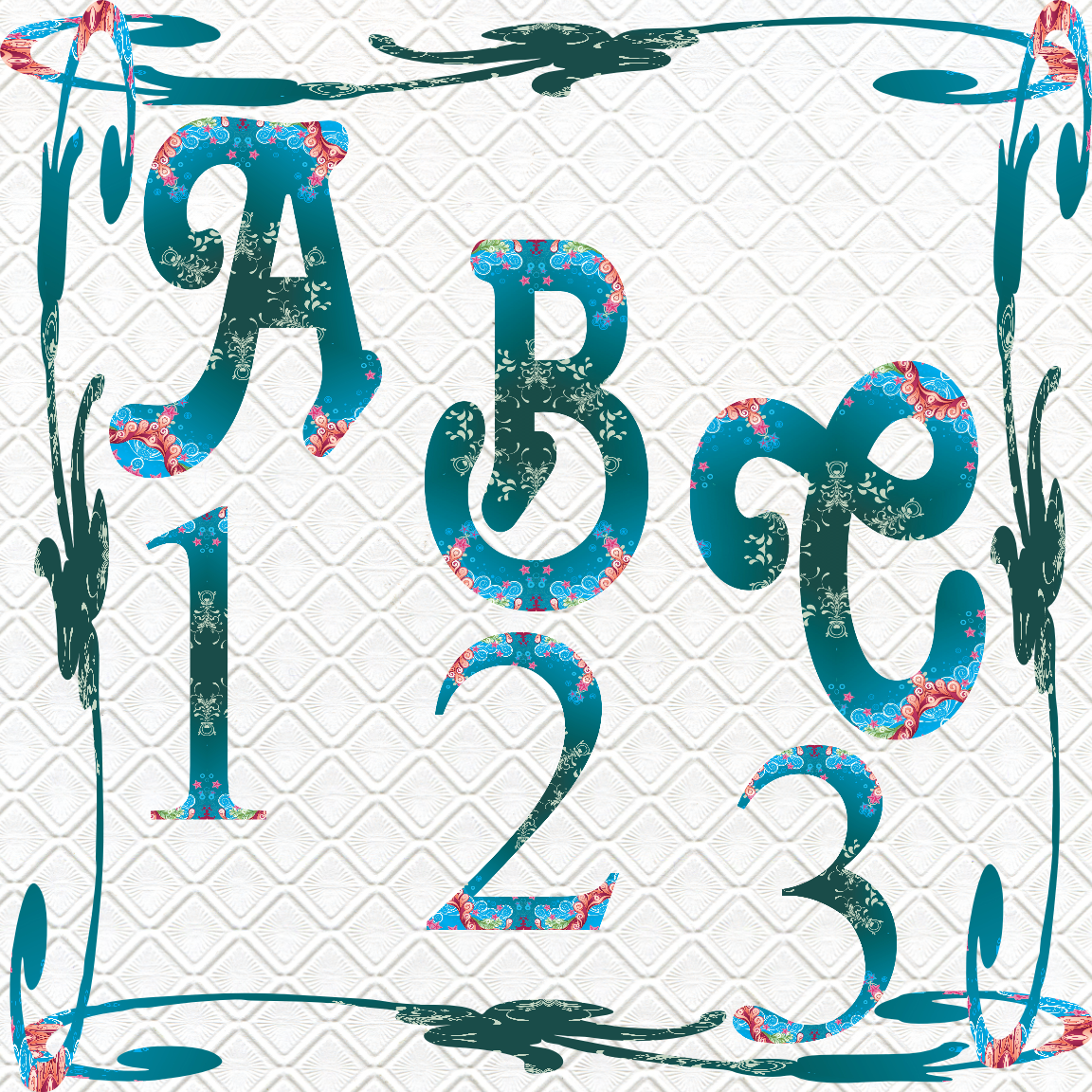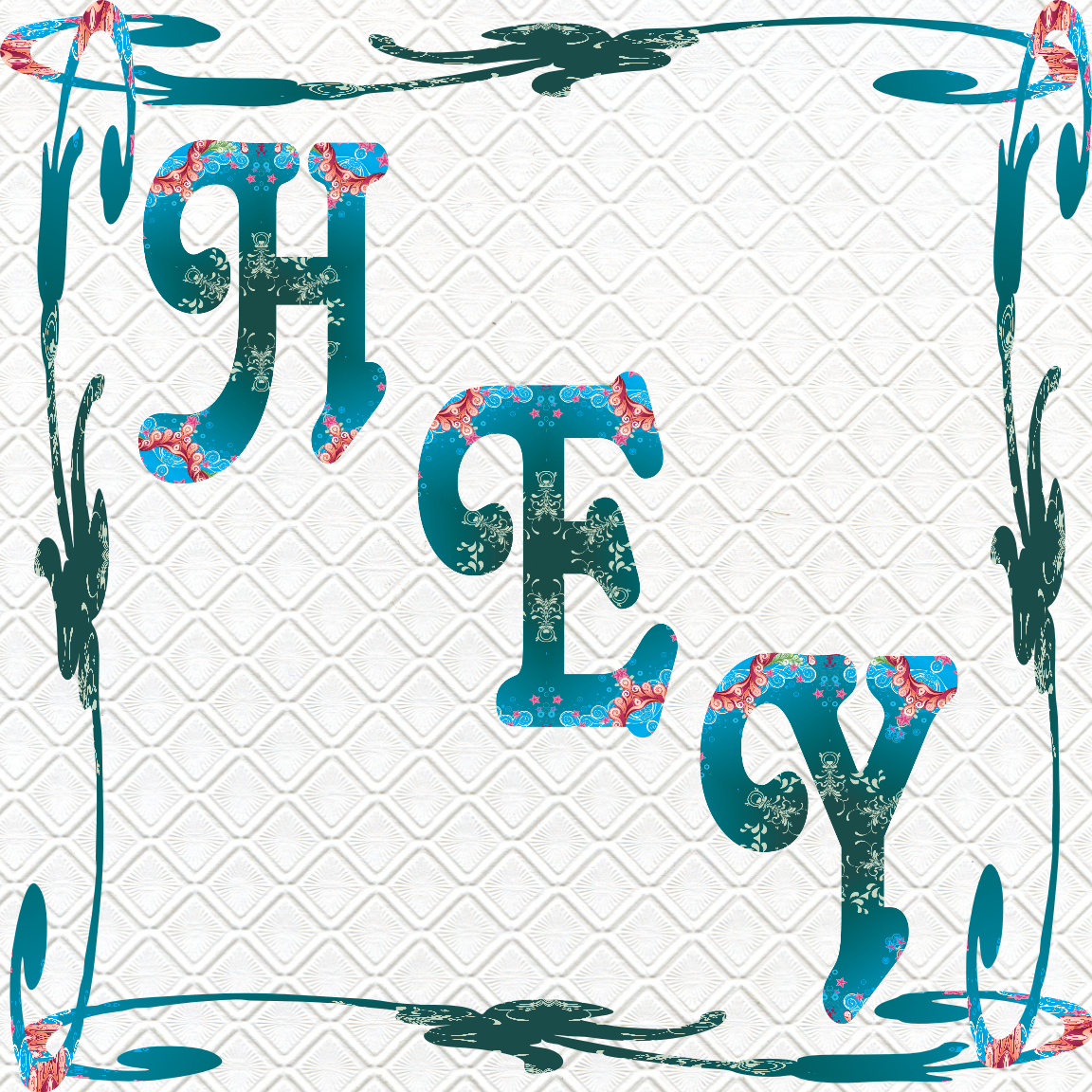
ABC and 123 48a-Digital ClipArt-Fonts-Art Clip-Flower-Gift Tag-Notebook-Holiday-Scrapbook-Banner-Background-Gift Card. The files you receive are in formats with transparent backgrounds. Clipart is great for creating invitations, birth announcements, baby showers, business cards, web designs, greeting cards, party printables, tags and so much more!